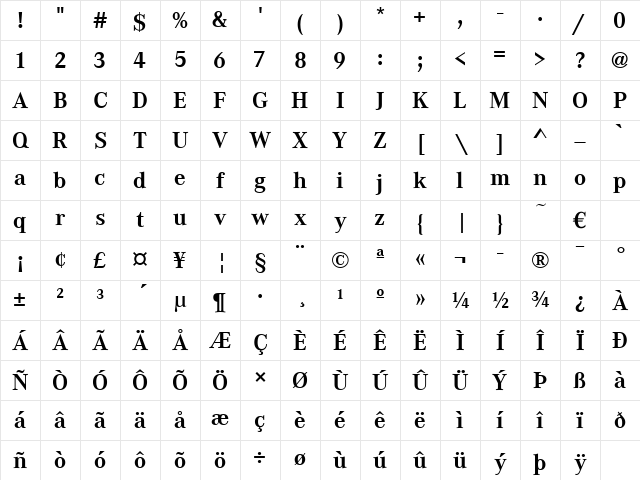
CorpoALig is a composed and adaptable typeface that performs quietly and consistently across a wide range of design contexts. Its bold stroke weight gives it real presence on the page.